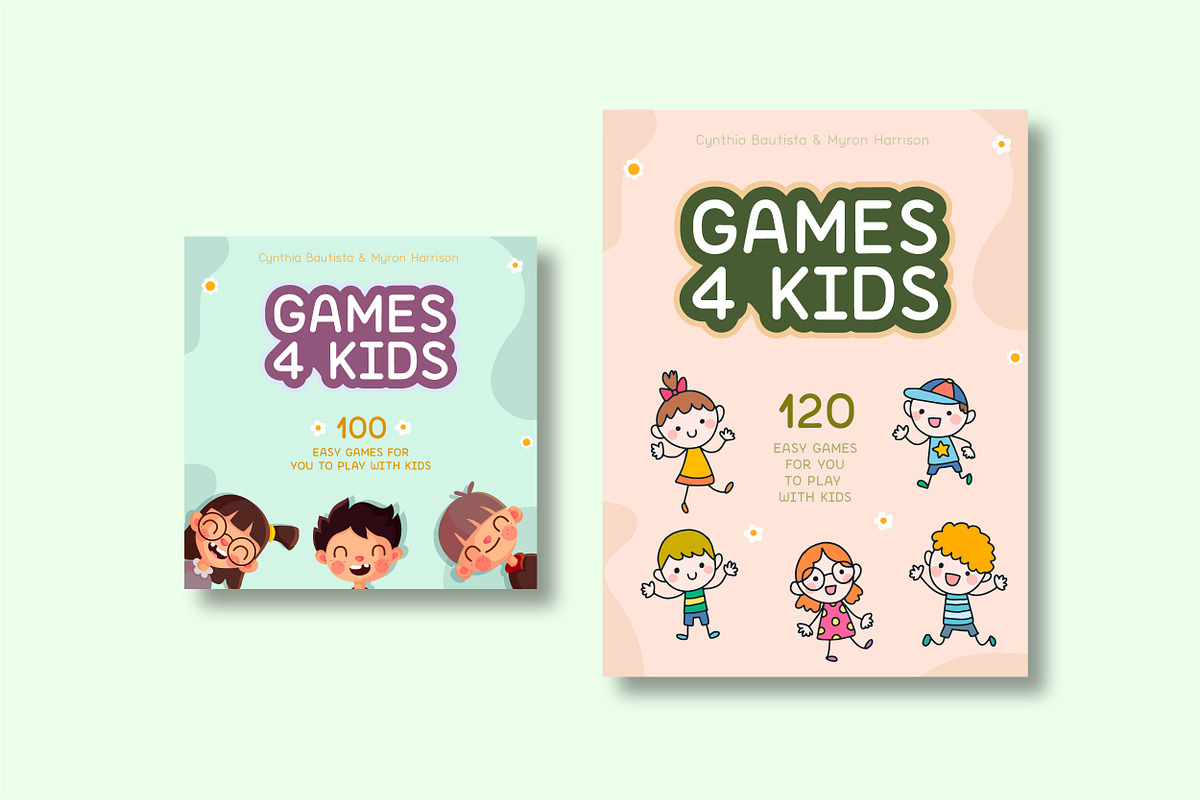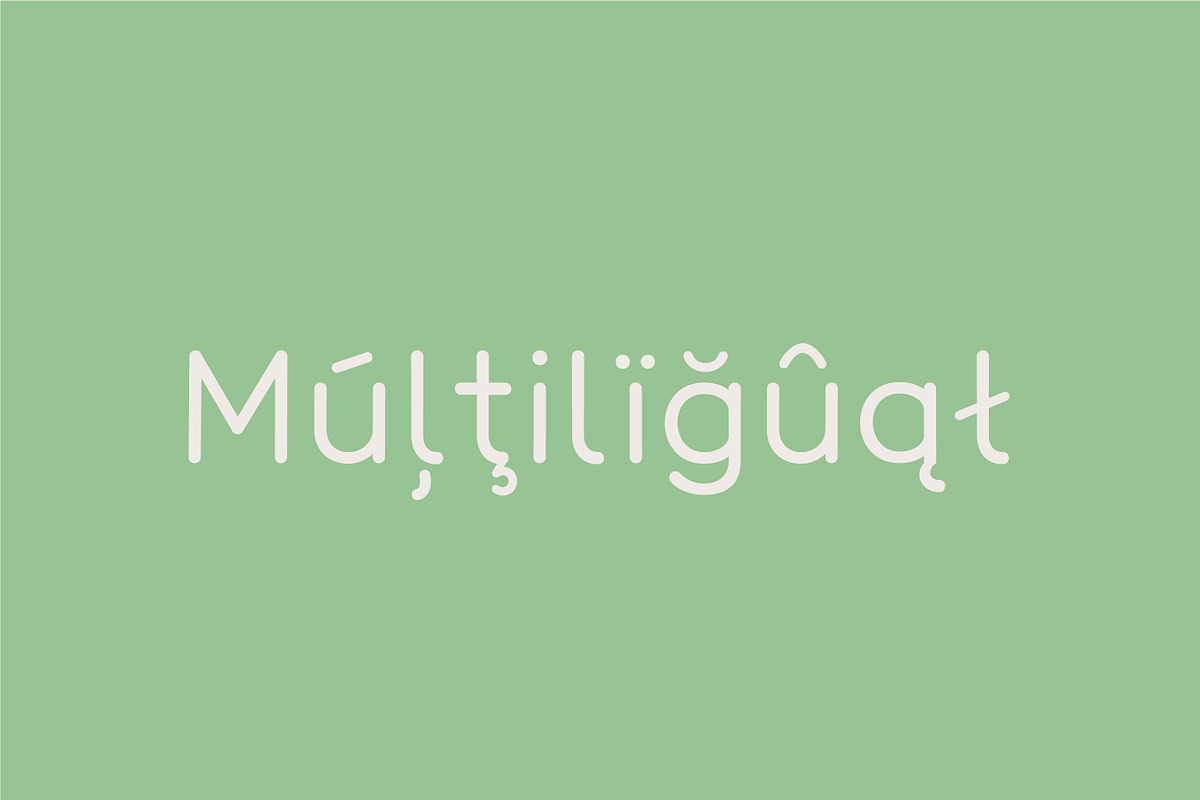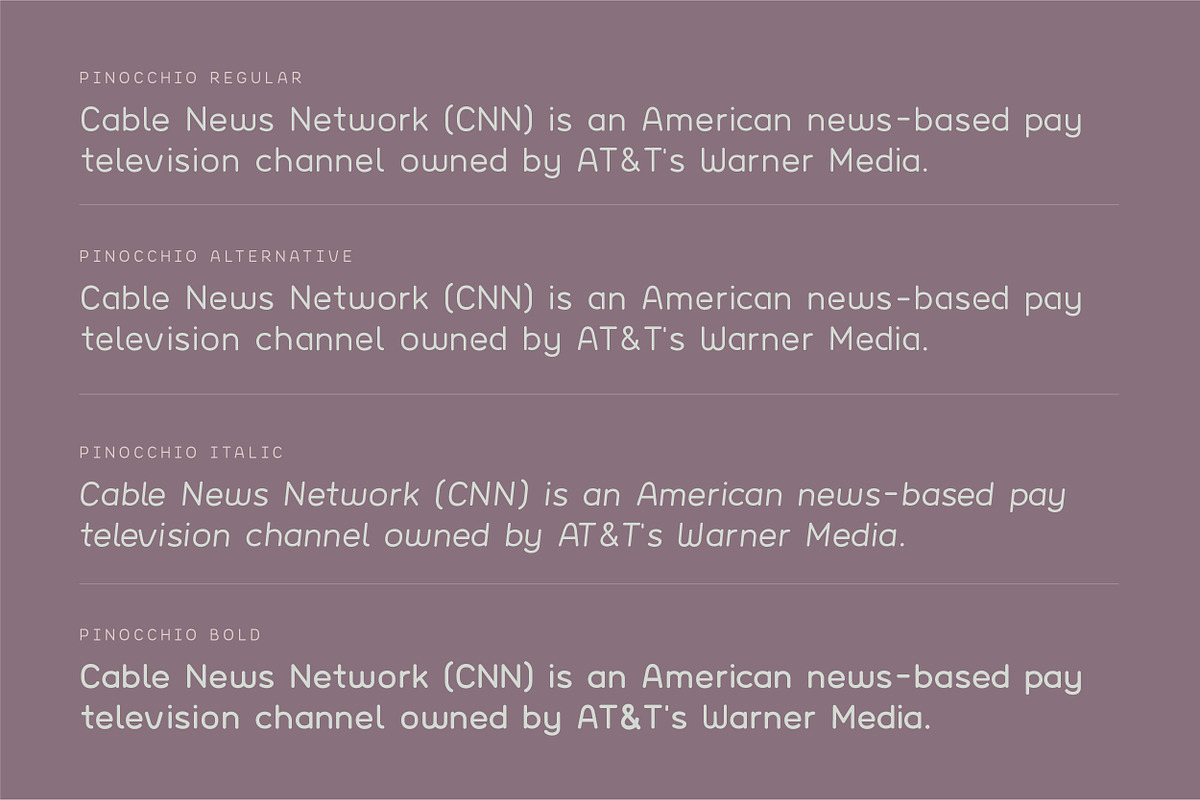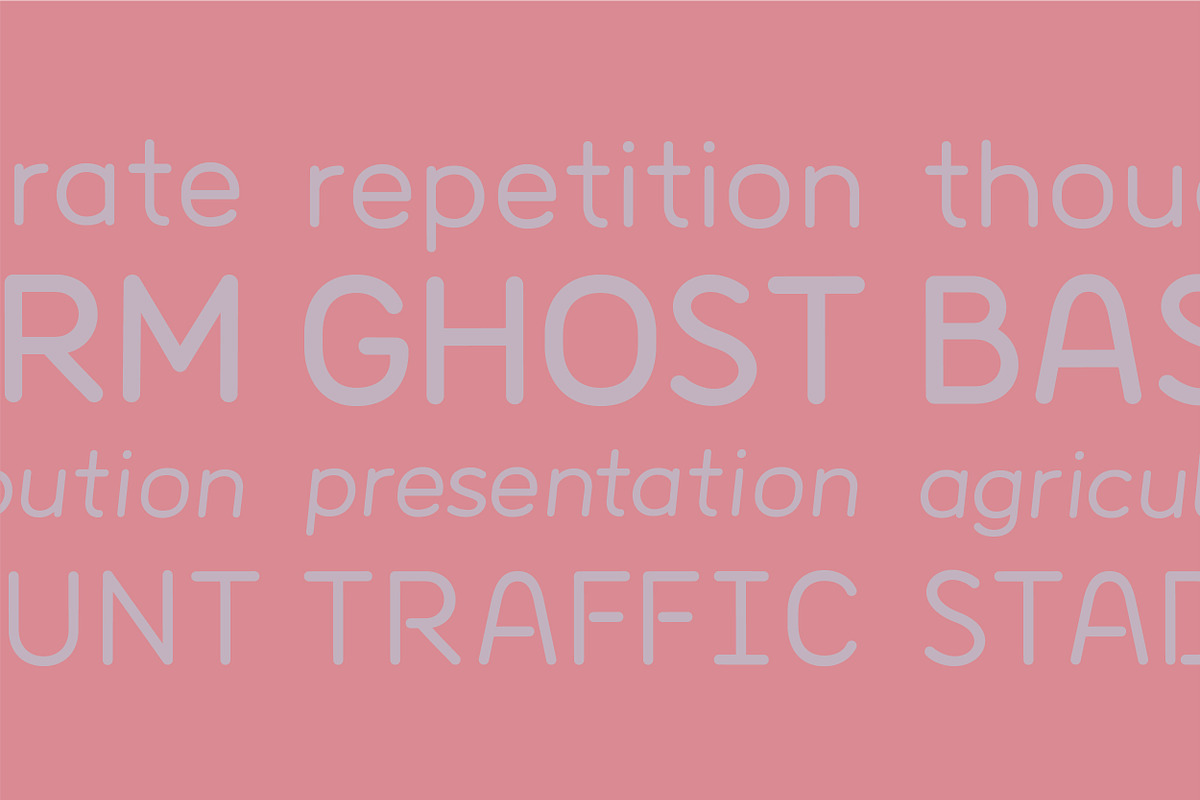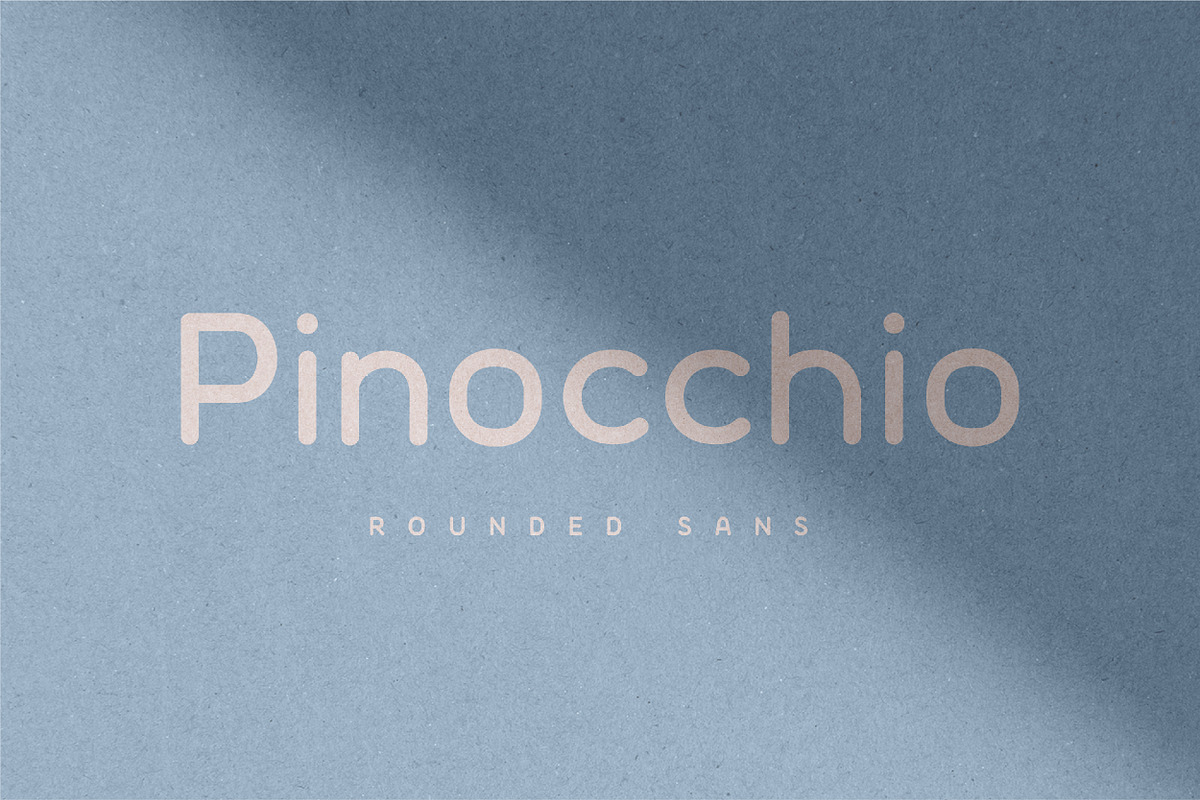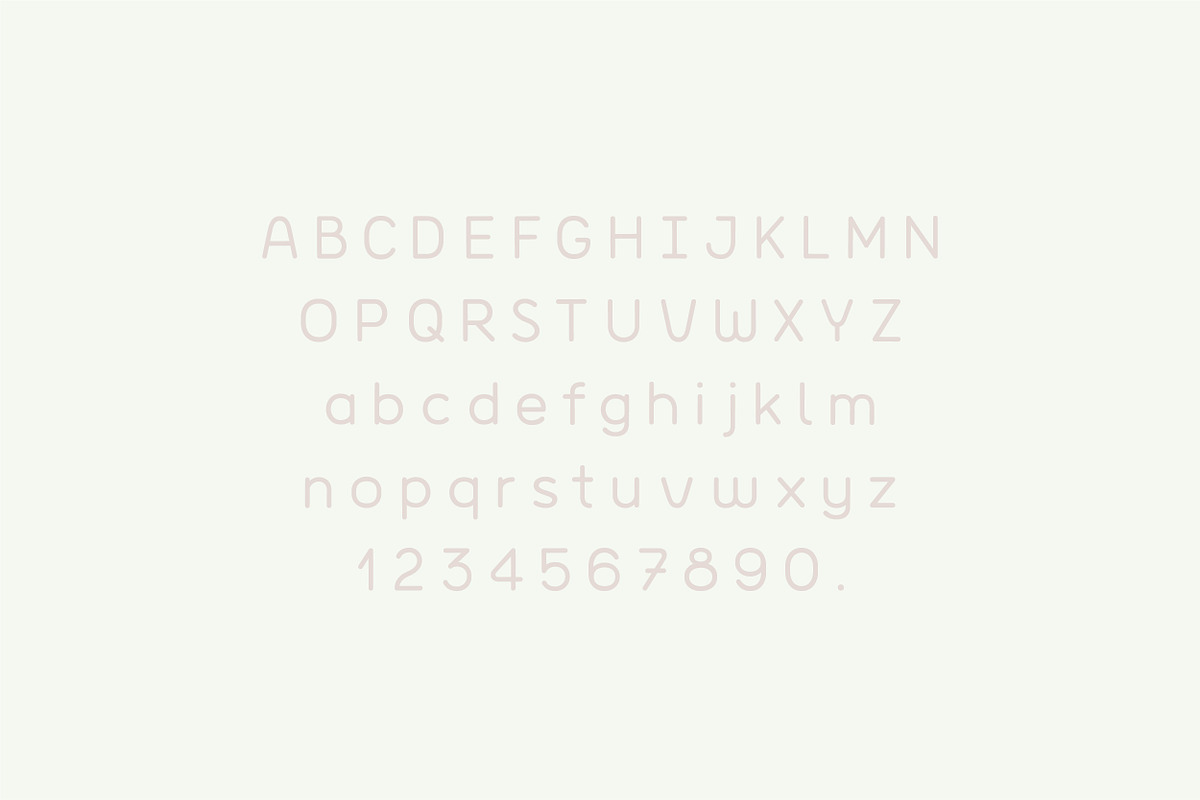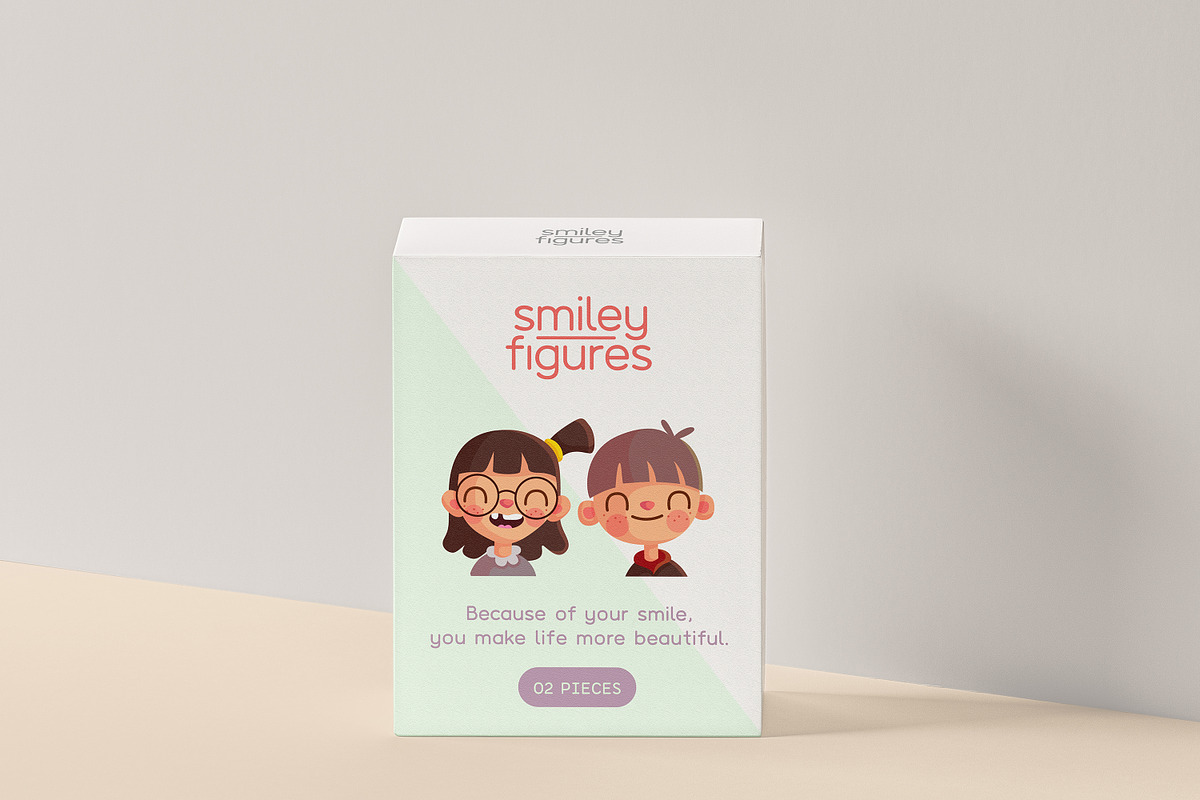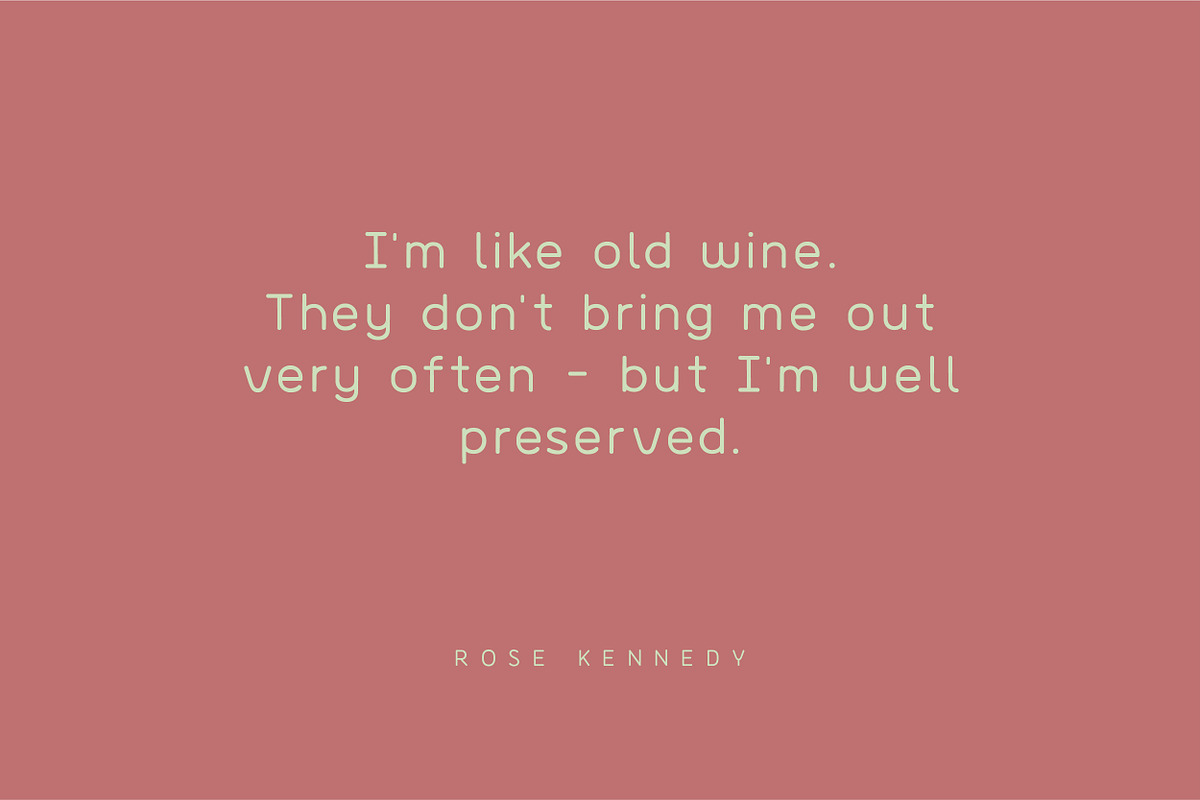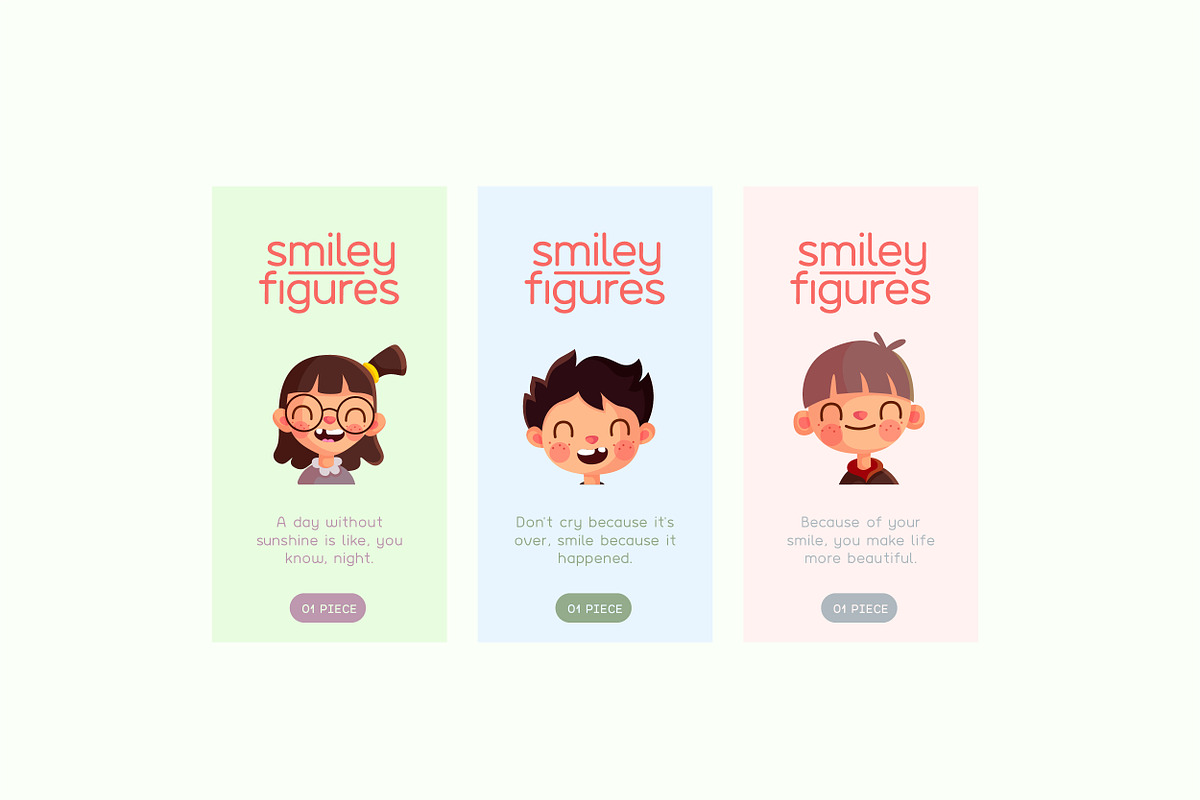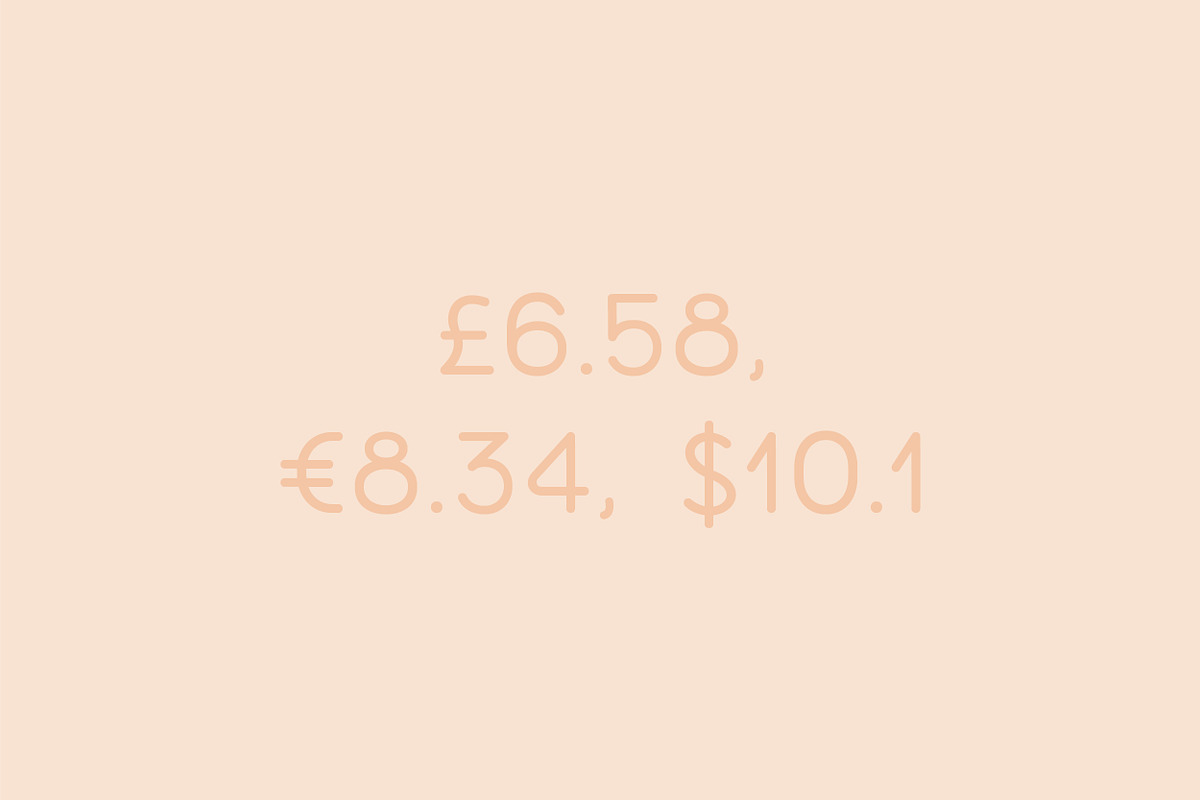
Pinocchio - Rounded Sans
Pinocchio typeface was designed by Harmonais Visual. A rounded sans serif typeface, with clean, humanist, and kid-friendly look. This font is perfectly suitable for creating cute, kid-friendly designs such as logos, children's books, toys packaging, and more.
- Alternatives
- All Europeans languages
- Vietnamese